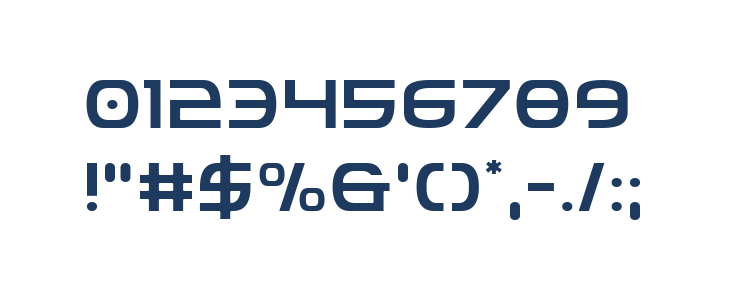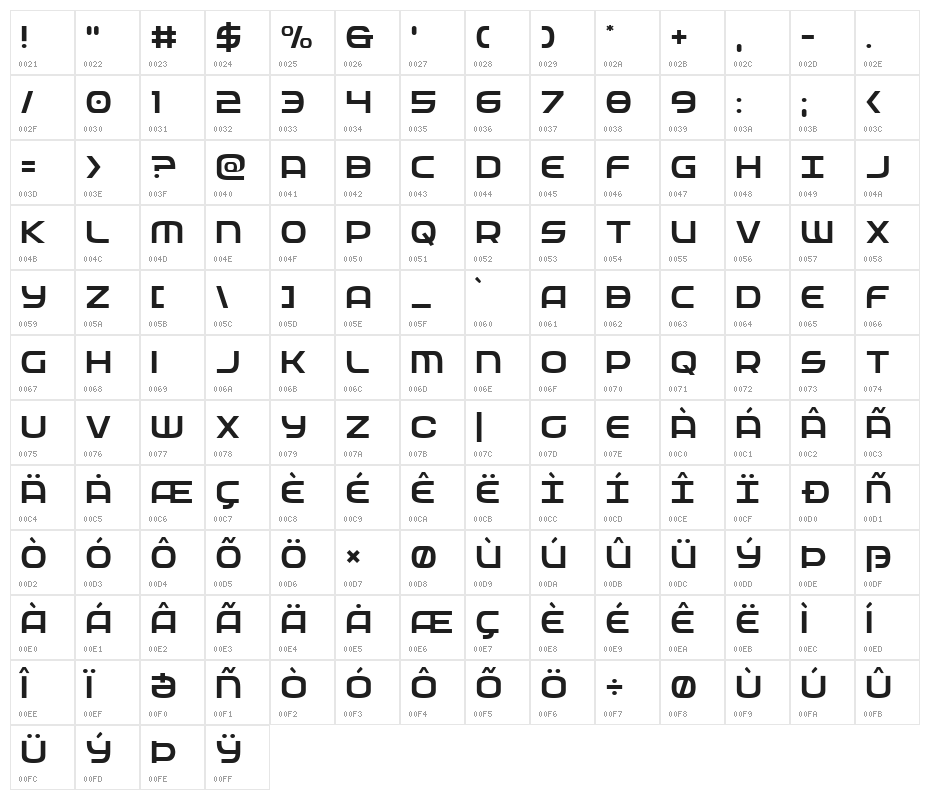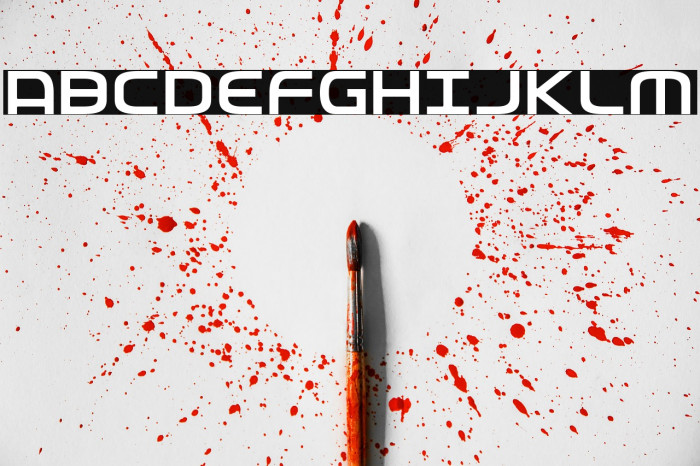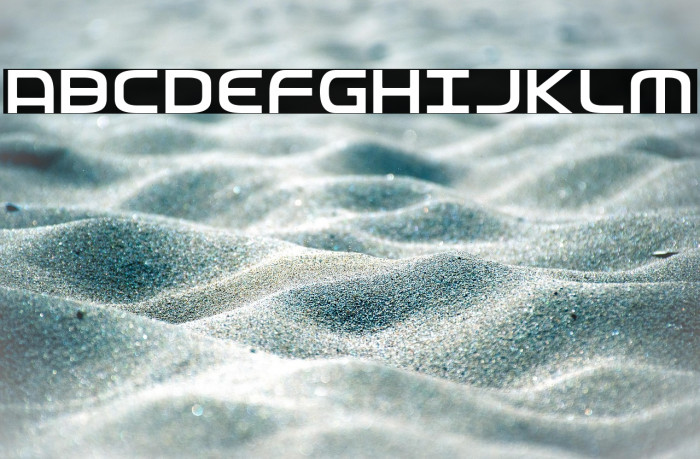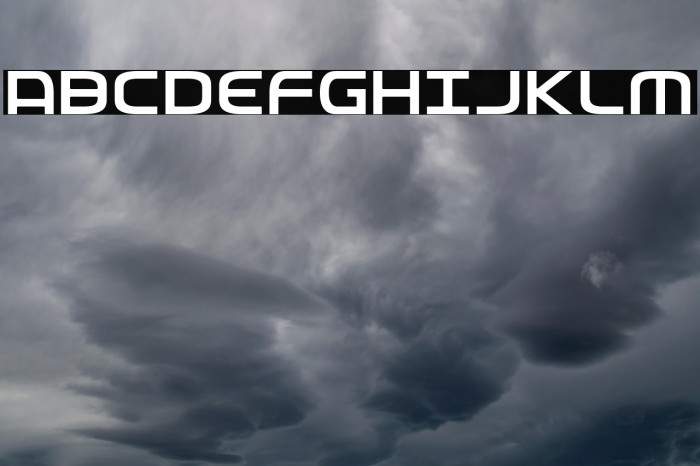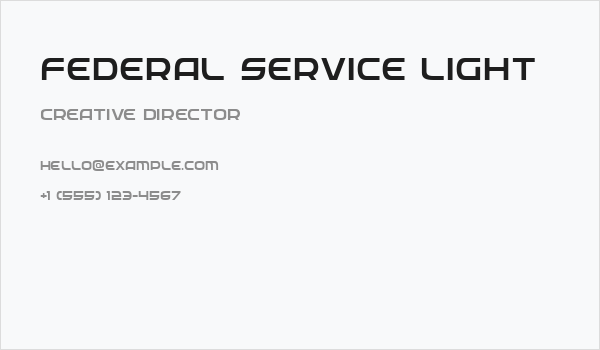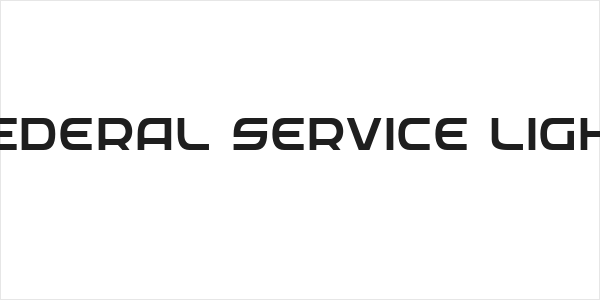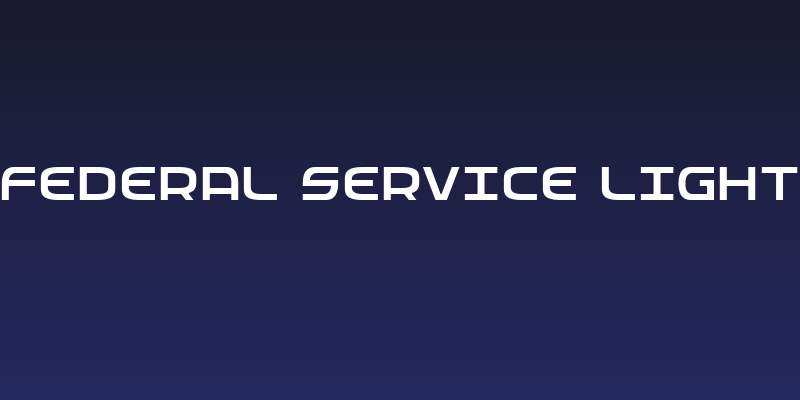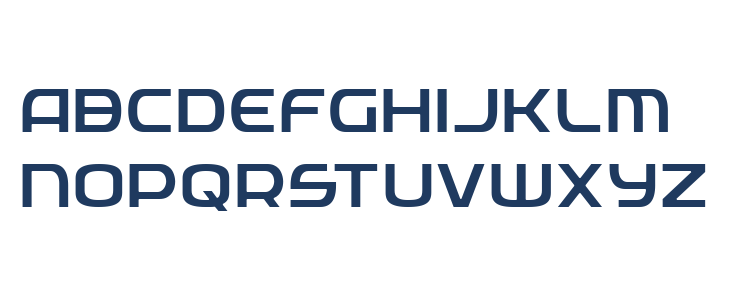
Federal Service Light Font
Federal Service Light Description
This font features a modern, geometric design with a clean and streamlined appearance. The characters are constructed with consistent stroke widths, giving it a uniform and balanced look. The uppercase and lowercase letters maintain a similar structure, enhancing readability and cohesion. The numerals and special characters are designed to complement the alphabet, with rounded edges and a futuristic feel. This font's simplicity and precision make it suitable for various applications, offering a contemporary and professional aesthetic.
| Use Case | Headlines, Logos, User Interfaces |
| Proposed Projects | Ideal for technology branding, user interfaces, signage, and modern editorial design. |